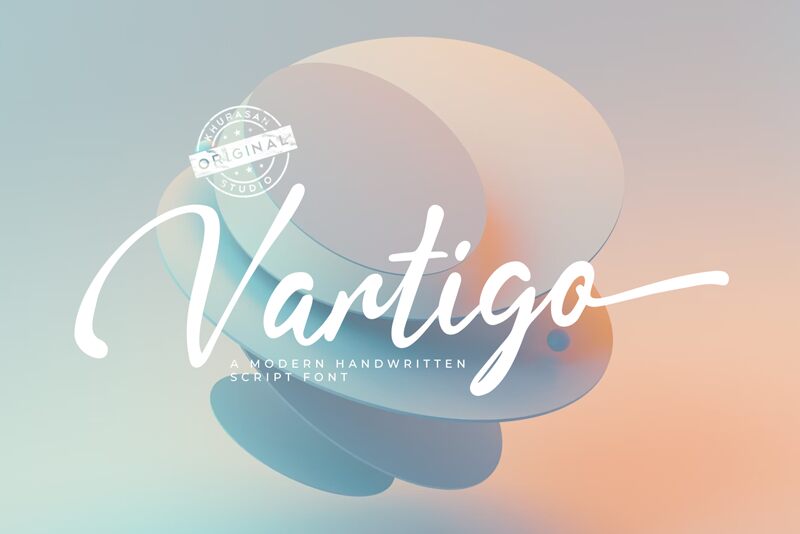
Vartigo font family is an expressive and fluid handwritten font that comes with a casual sophistication. Created by Khurasan and offered with two font styles, this resource can instantly add the personal touch you’re searching for. Its artistic style along with its modern and contemporary appeal make it suitable for use in a wide variety of projects. Feel free to mix its uppercase letters, lowercase ones, and multilingual characters as you please.
Vartigo is suitable for use in logotypes, branding projects, social media posts, quotes, promoting your business, or even presenting an awareness campaign. Take advantage of its fluid and natural-looking letters in your magazine covers, packaging designs, book covers, and websites as well.